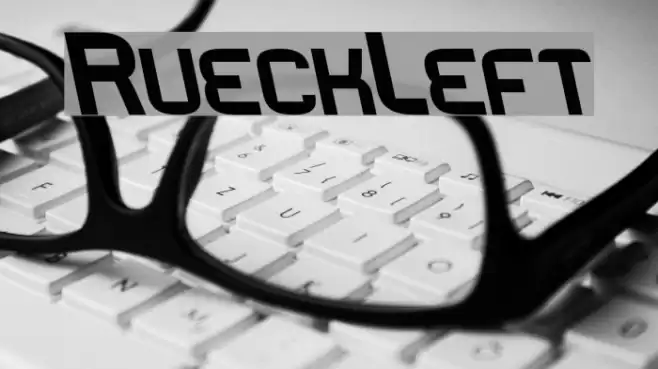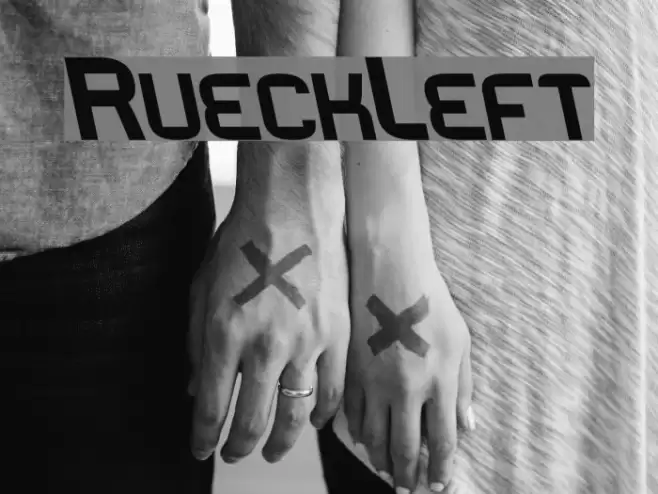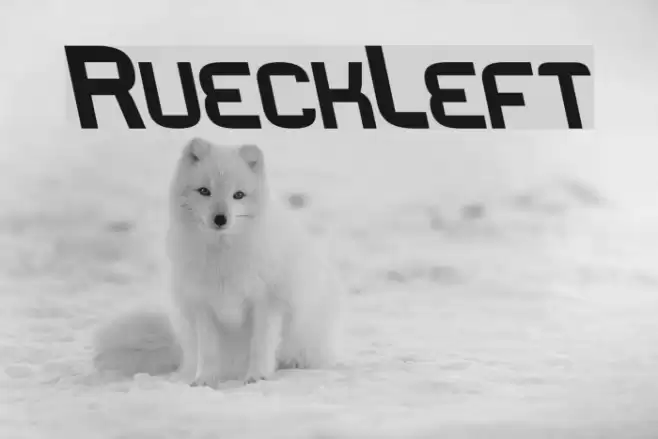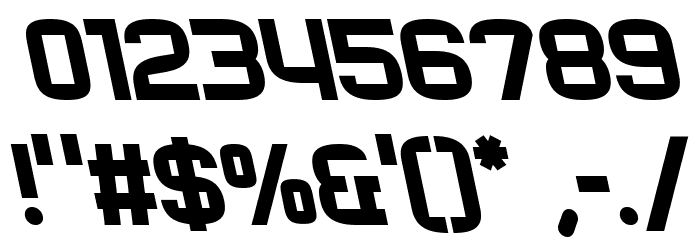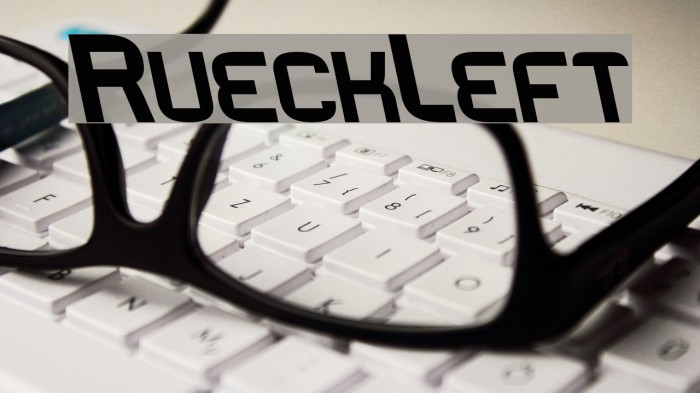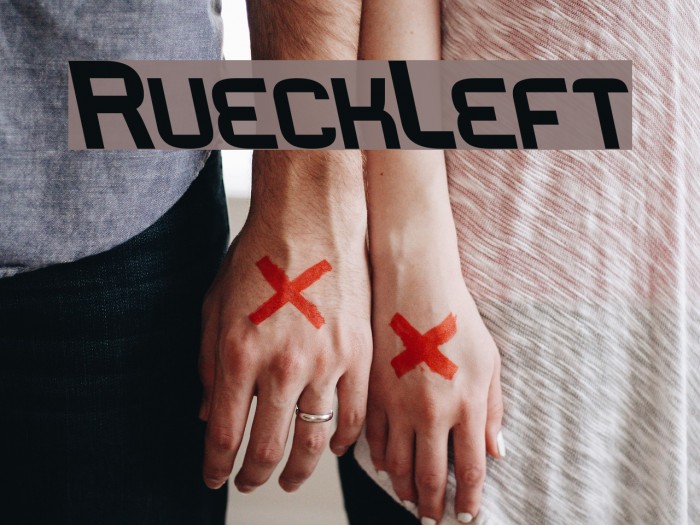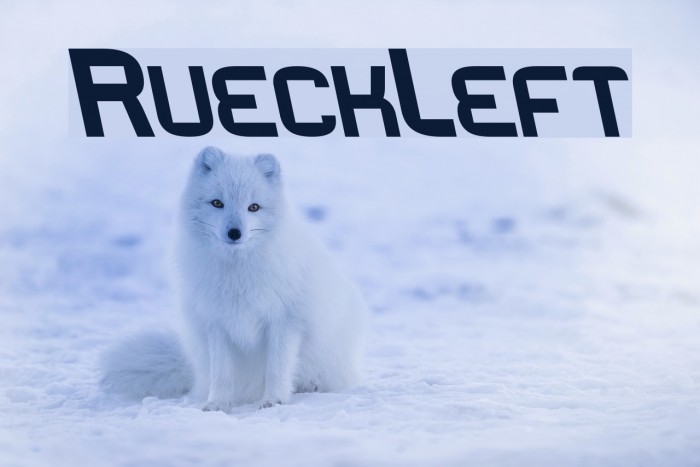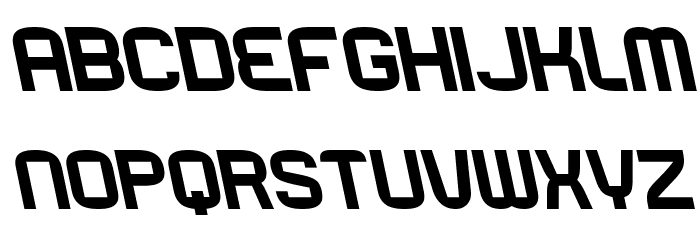
RueckLeft
This font features a bold, geometric style with a modern and futuristic appeal. The characters are constructed with thick, uniform strokes, giving them a strong presence. The design incorporates sharp angles and clean lines, creating a sense of precision and efficiency. The uppercase and lowercase letters maintain a consistent width, contributing to a cohesive look. The numerals and special characters are designed with the same boldness, ensuring readability and impact. This font is ideal for projects that require a contemporary and assertive aesthetic.
A bold, geometric font with a modern and futuristic style.
- Proposed Projects: Ideal for technology branding, futuristic posters, video game titles, and modern advertising campaigns.